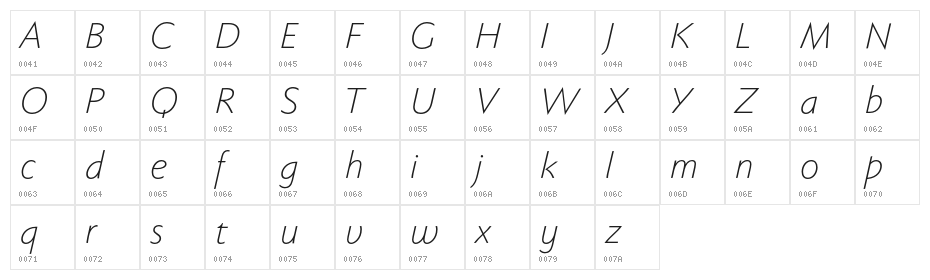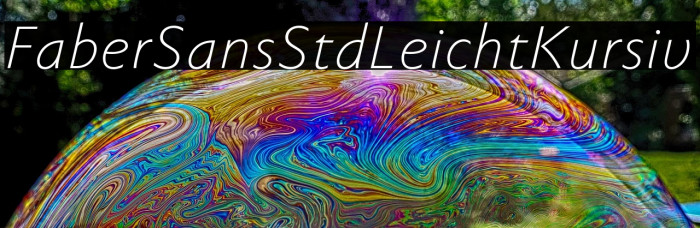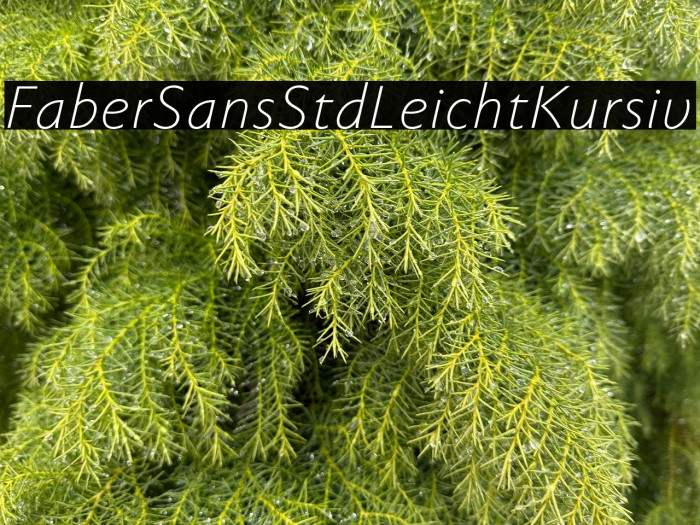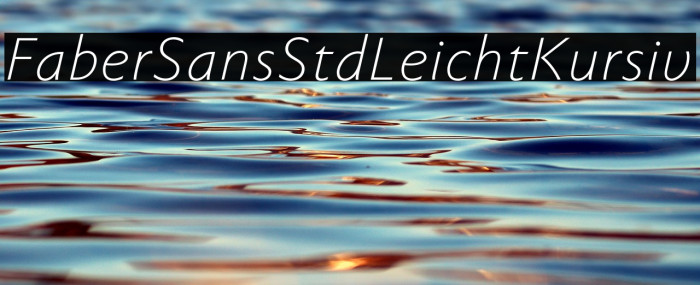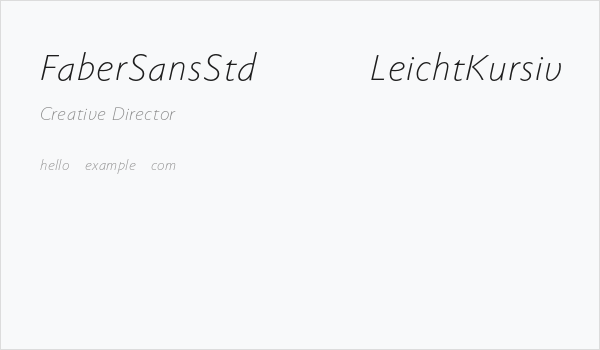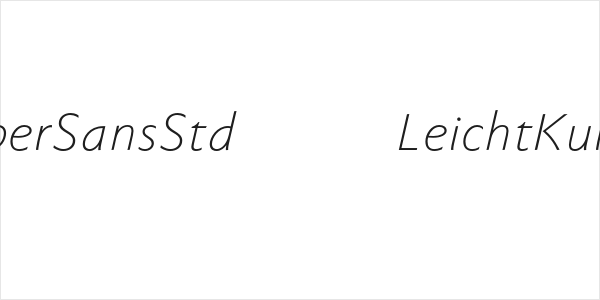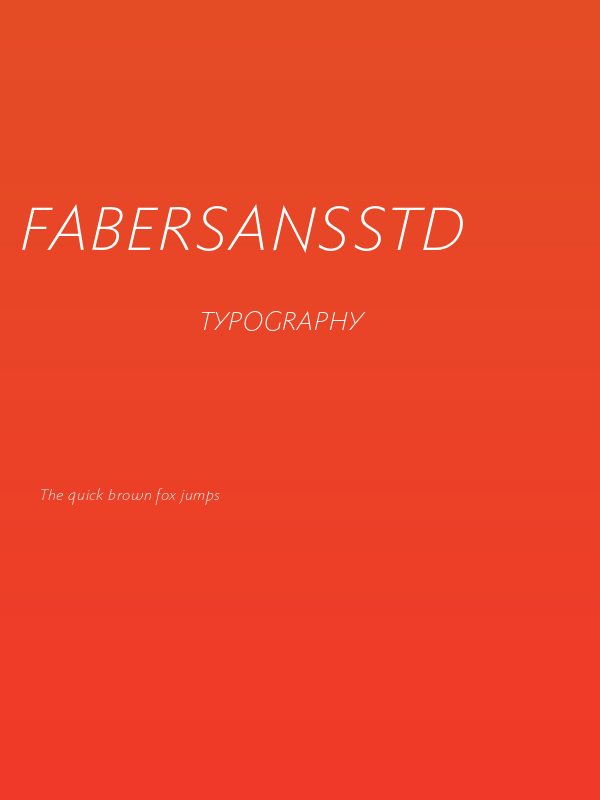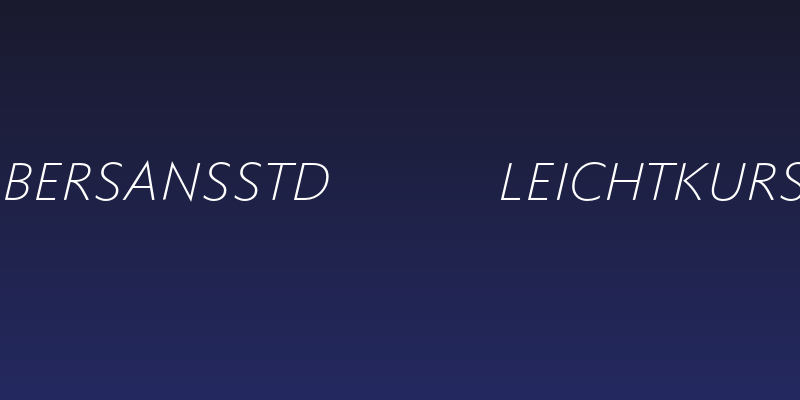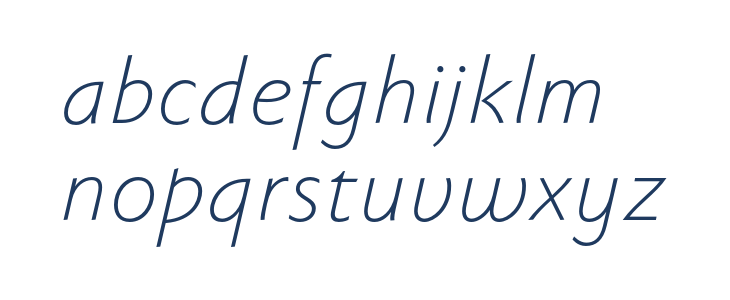
FaberSansStd-46LeichtKursiv Font
FaberSansStd-46LeichtKursiv Description
This font features a sleek and elegant design with a slightly italicized style, giving it a modern and sophisticated appearance. The characters are well-proportioned with a consistent stroke width, providing a clean and readable look. The uppercase letters are tall and slender, while the lowercase letters maintain a smooth and flowing form. The font's light weight adds to its airy and refined aesthetic, making it suitable for a variety of design applications. The spacing between characters is balanced, ensuring clarity and legibility across different sizes.